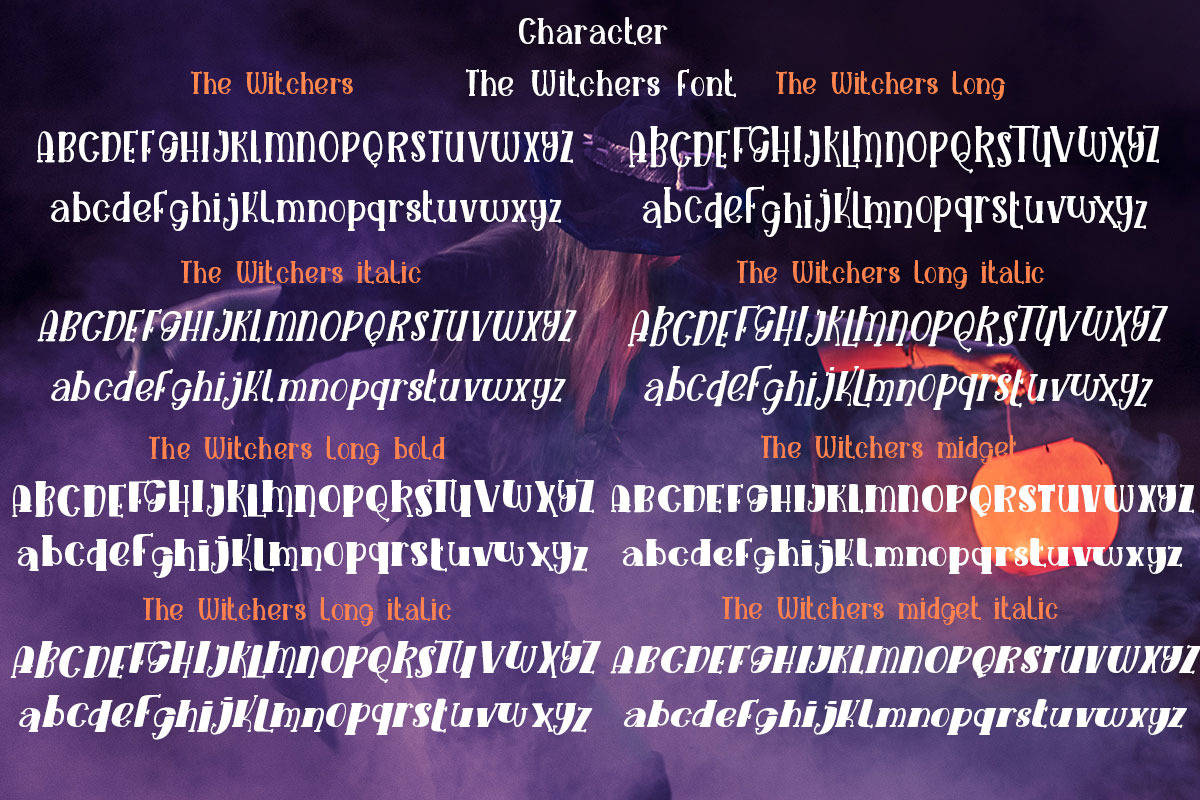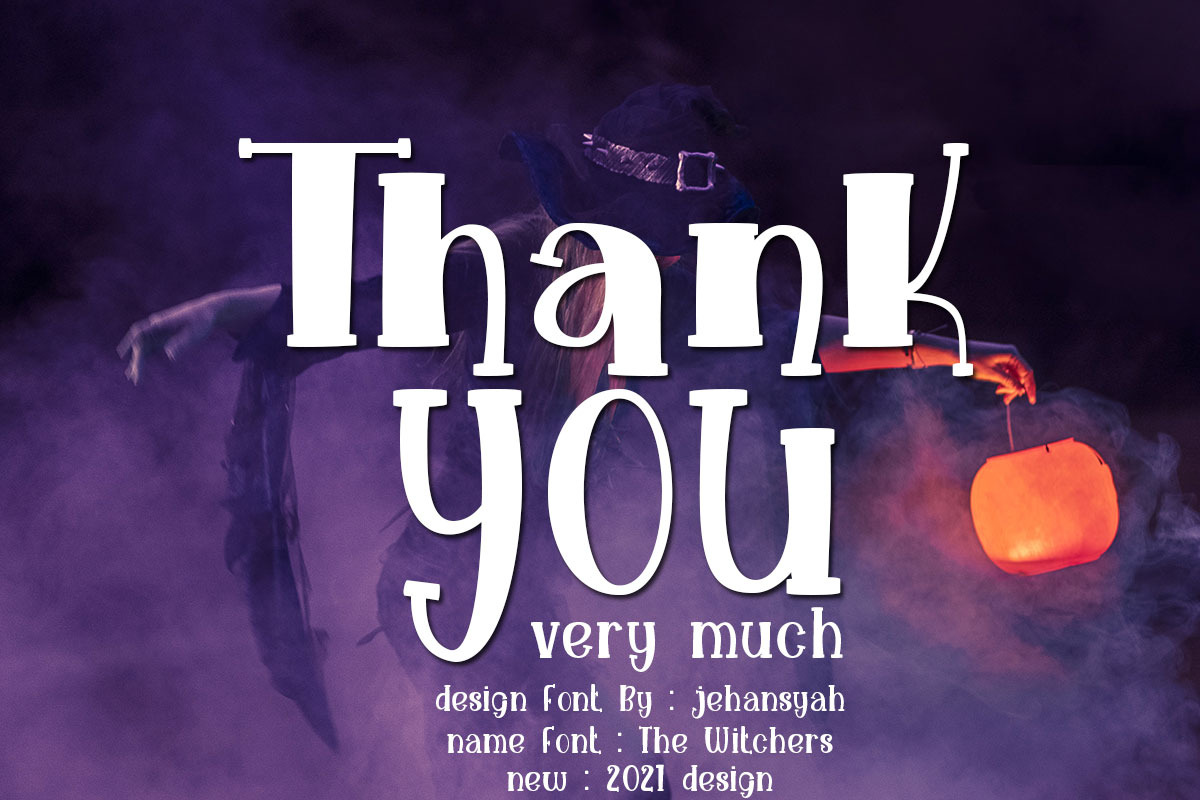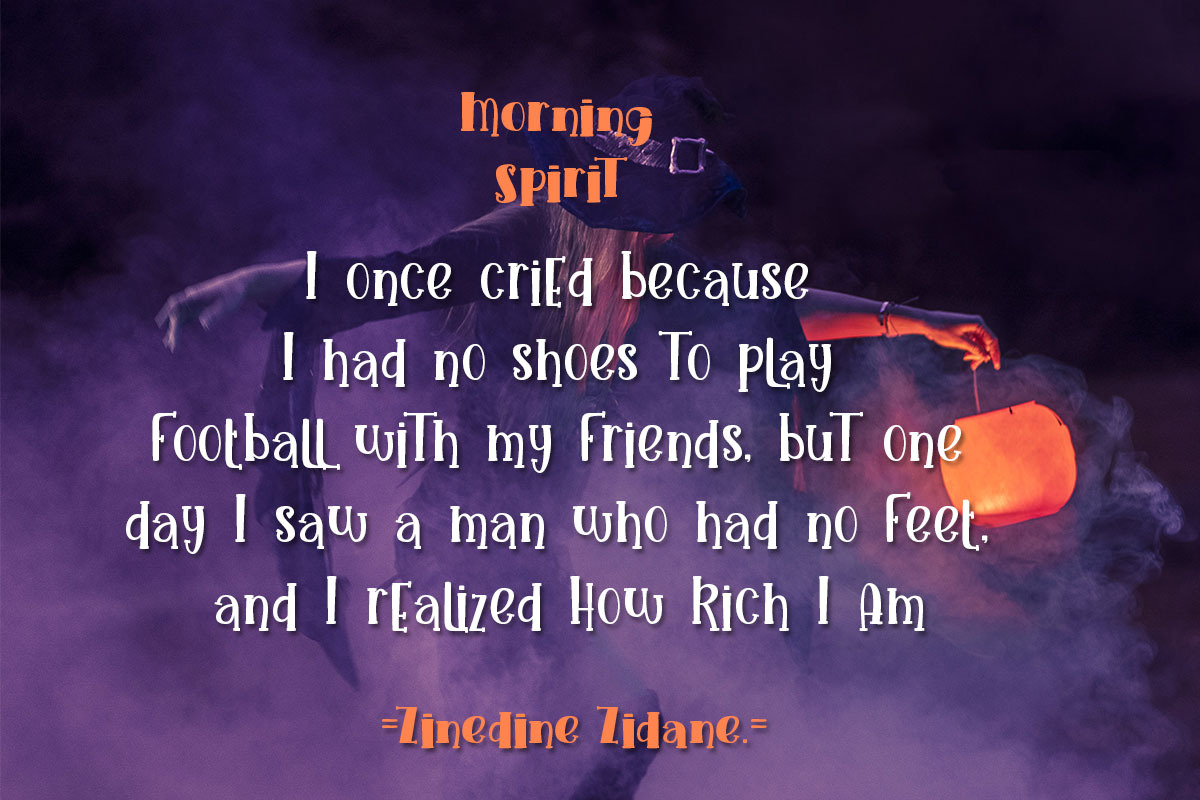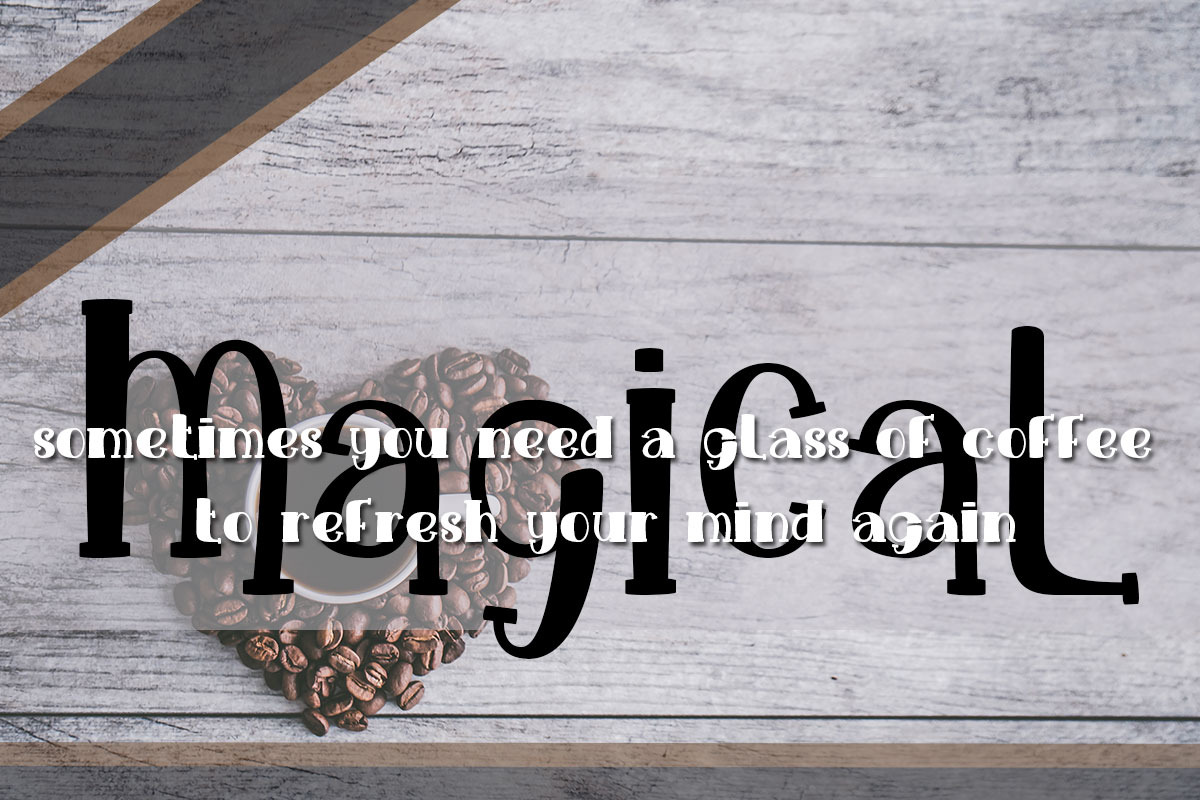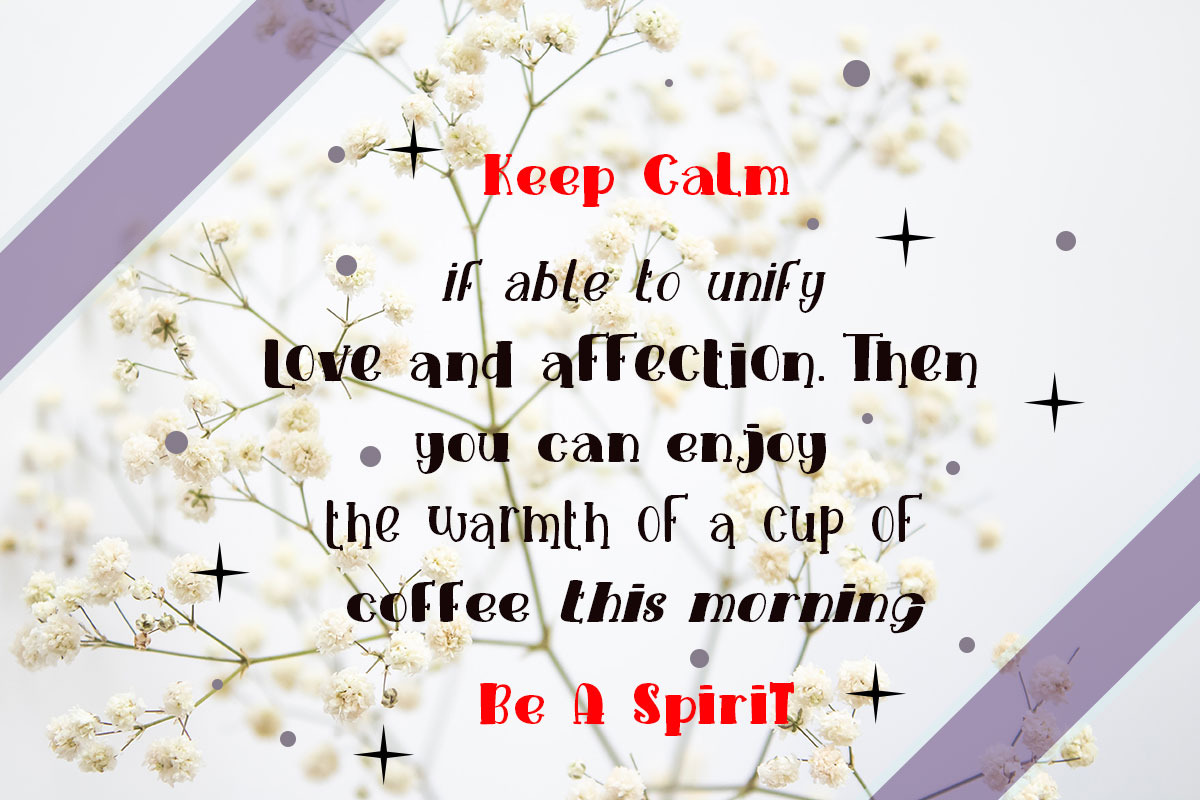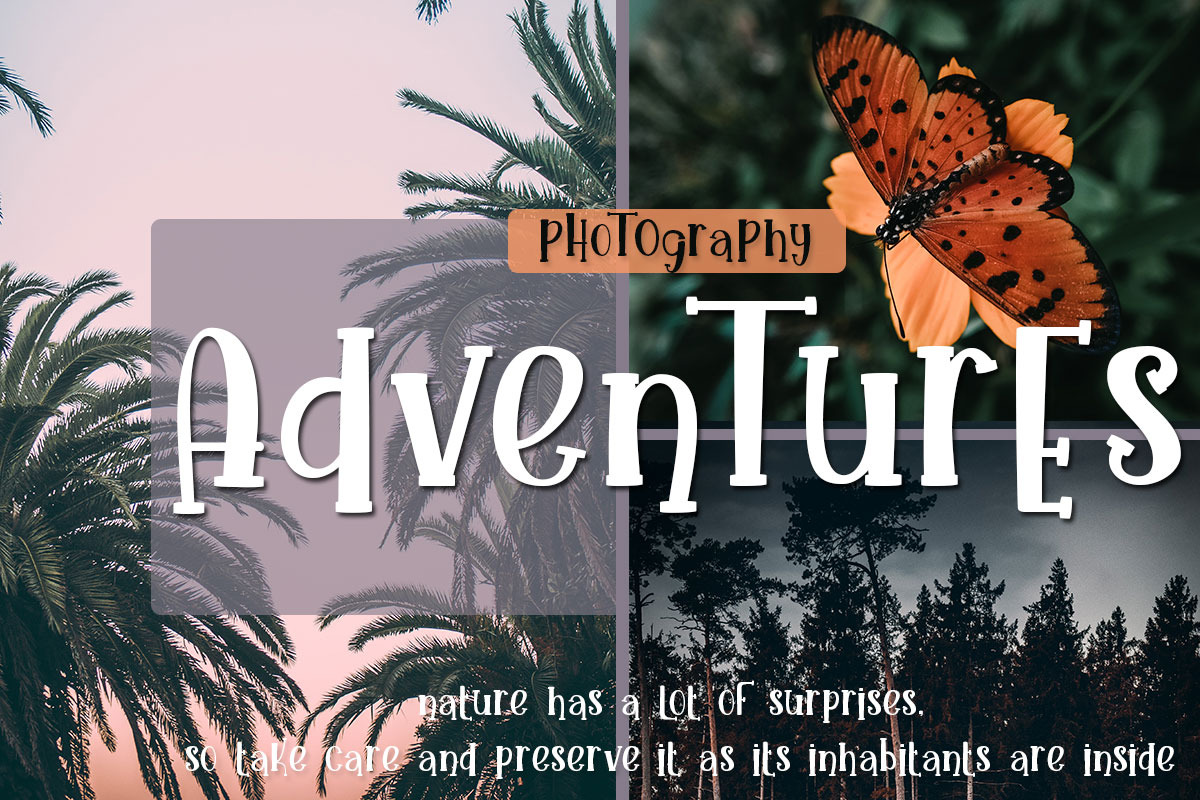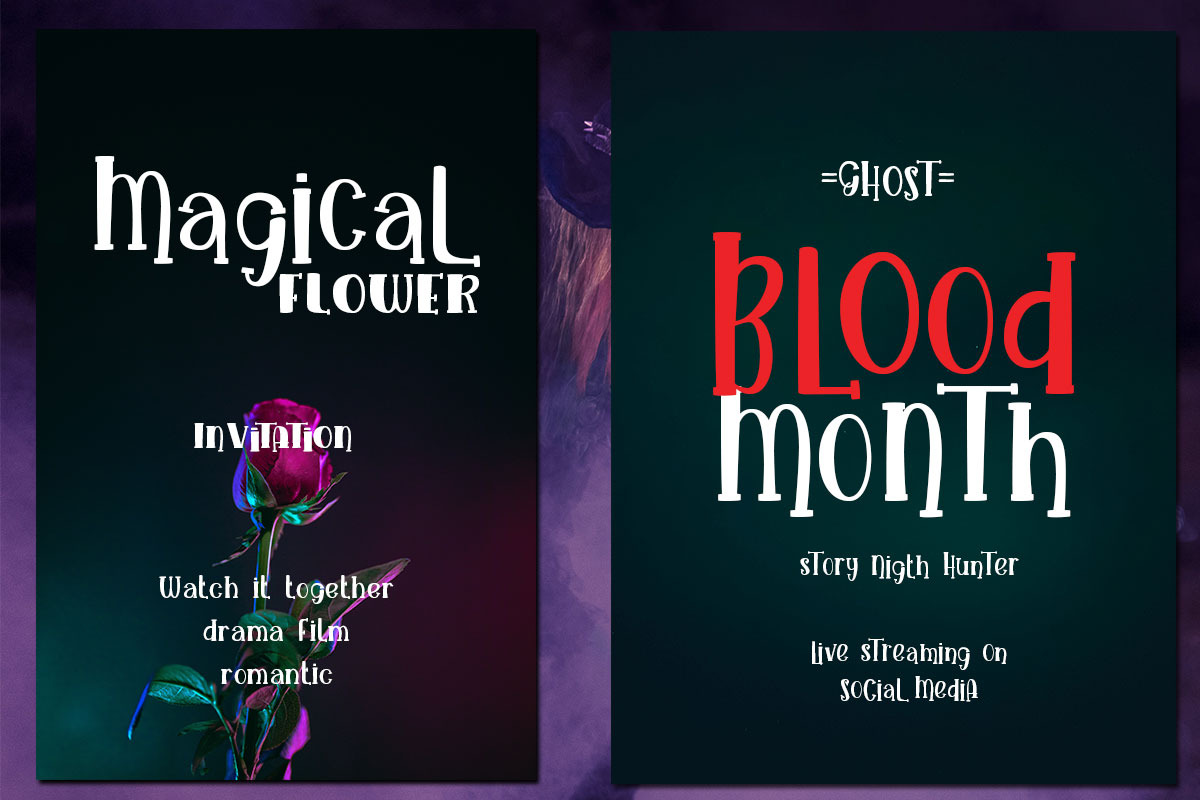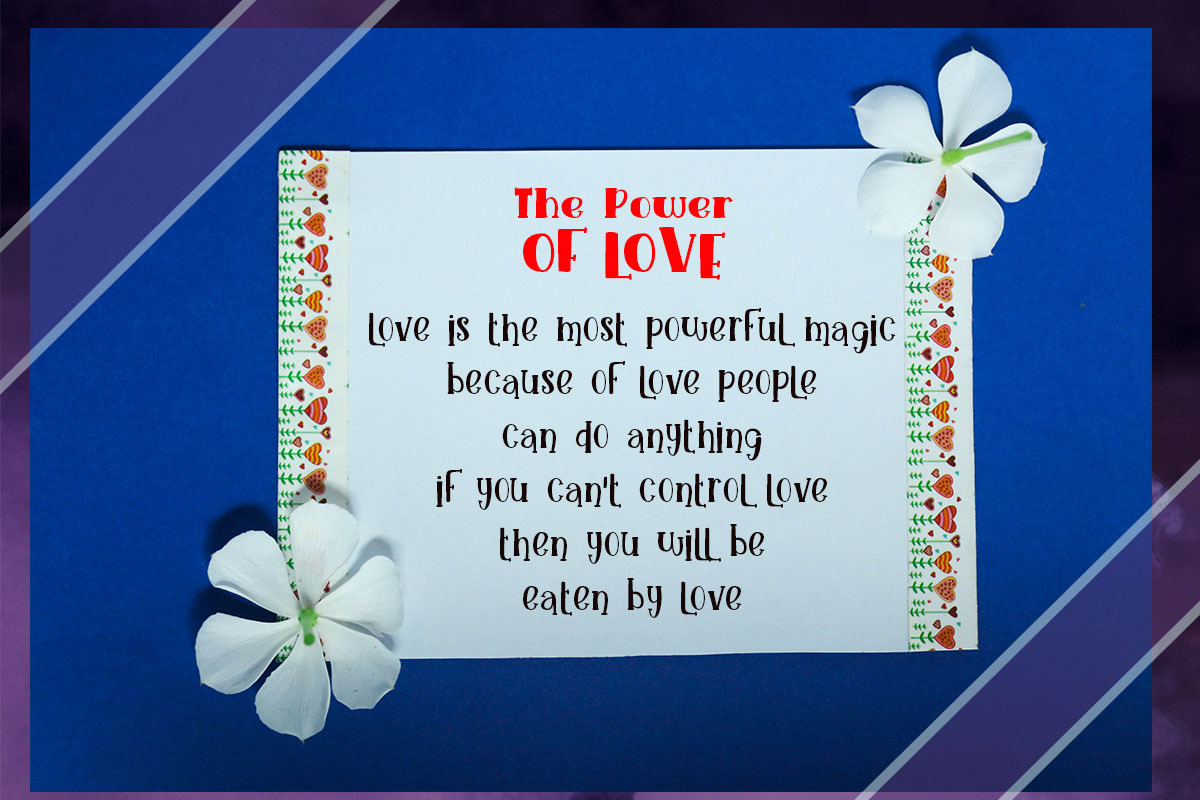
The Witchers
The Witchers This is a unique and cute font, made by the family so that you can easily choose the right thing for your design, cute and cheerful, this is the look that this font design offers
inspired by some animated characters, and I tried to give a touch to this font design it's a shame if you missed this beautiful design